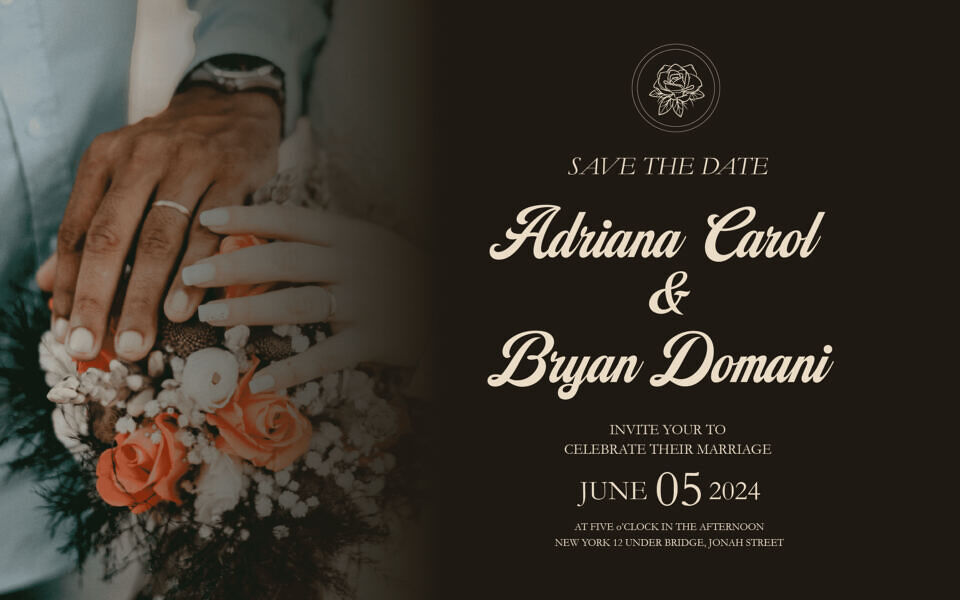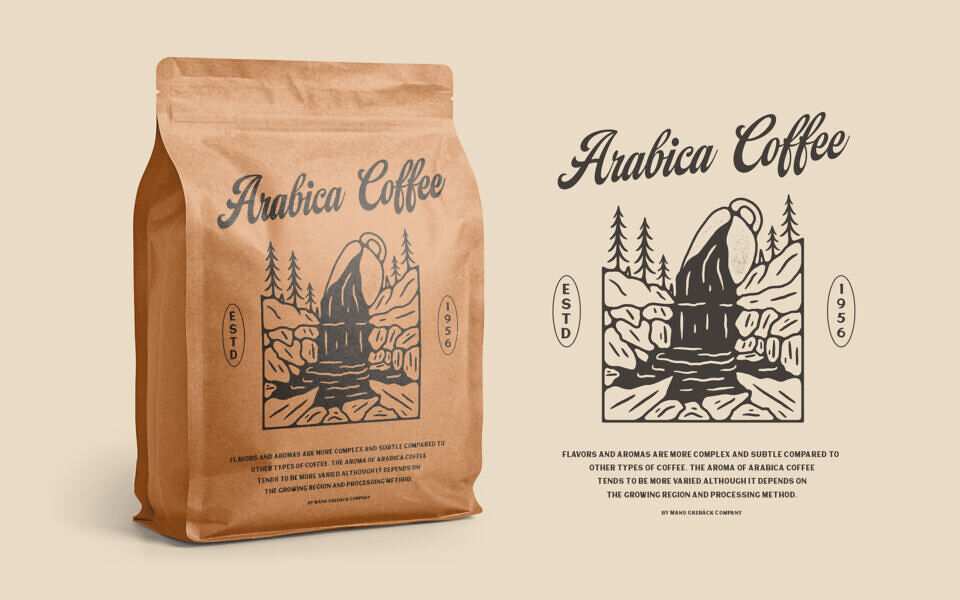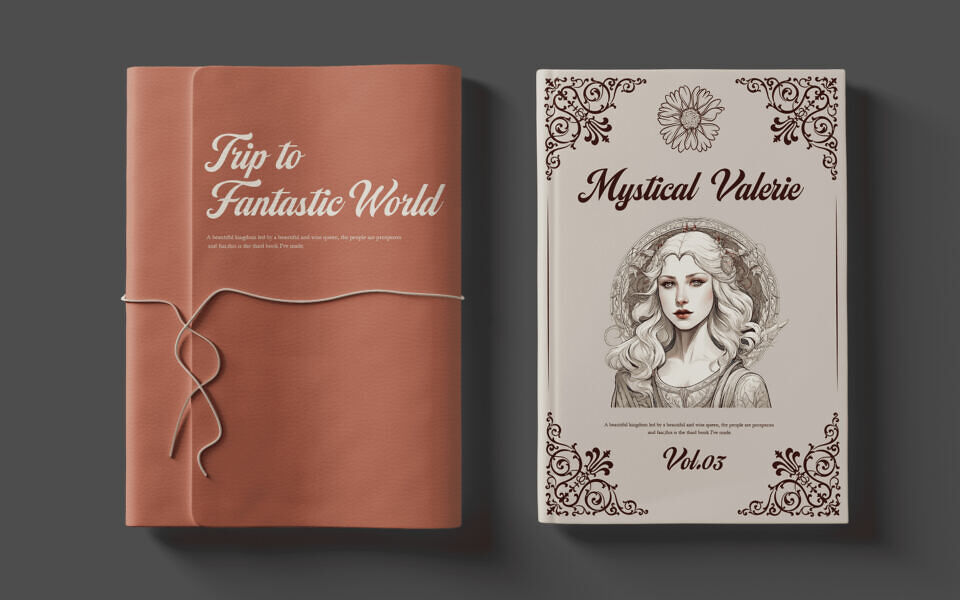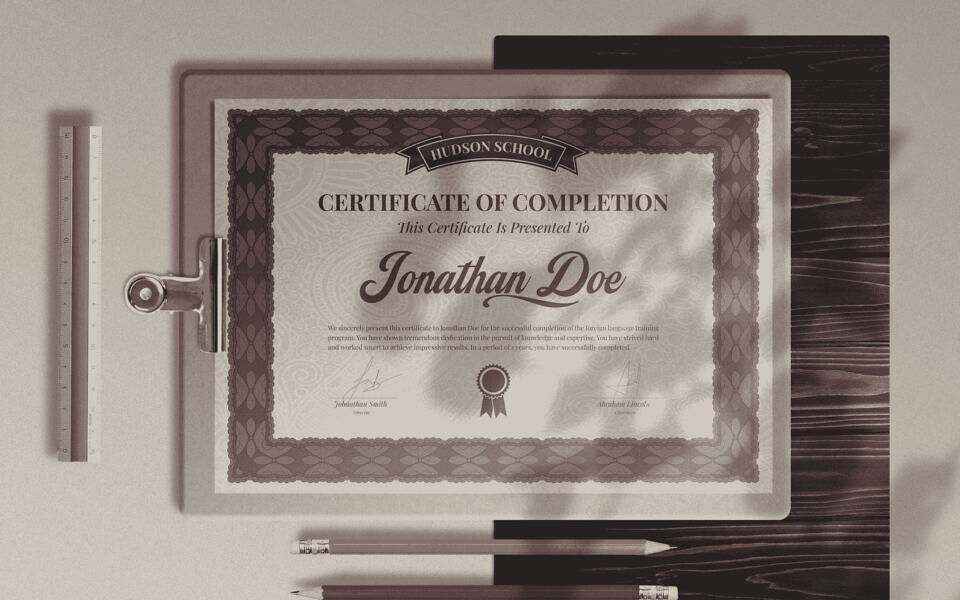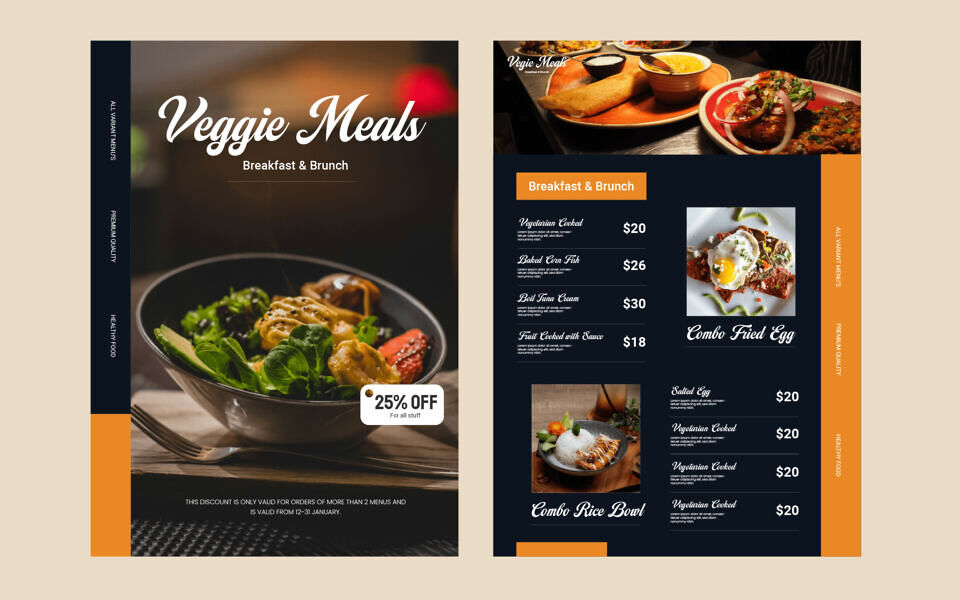
Campana Script is your go-to for classical elegance. Picture walking into an old bookstore and discovering a handwritten love letter tucked inside a dusty novel. This font brings that level of intimacy and nostalgia to your designs. Designed with heavy lines and intricate swashes, Campana Script suits formal applications like wedding invitations, certificates, and classic logotypes.
Use underscore _ to make a swash. Example: Deco_rative Use multiple underscores to make different underlines. Example: Candy__shop